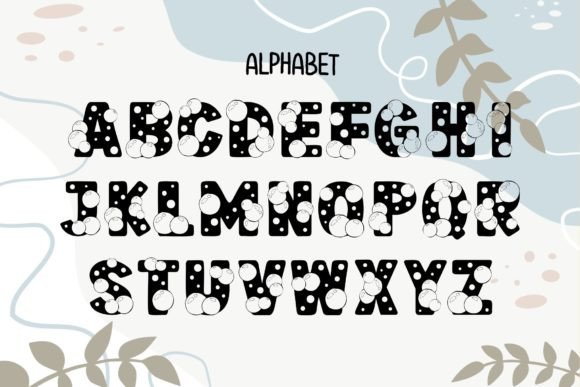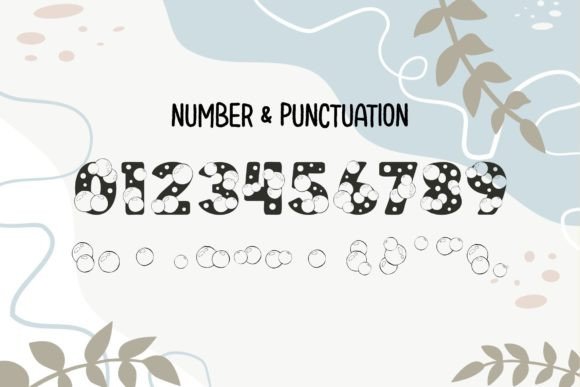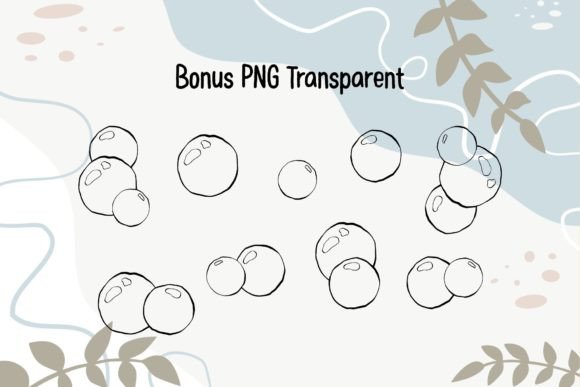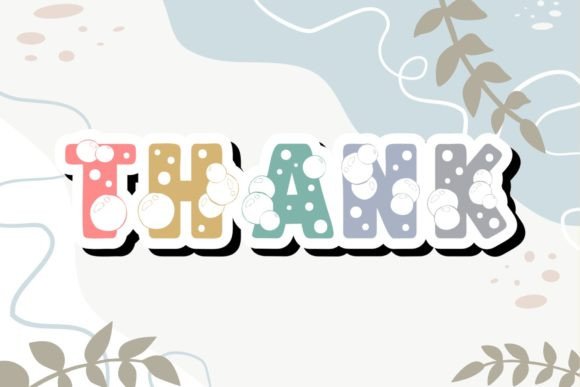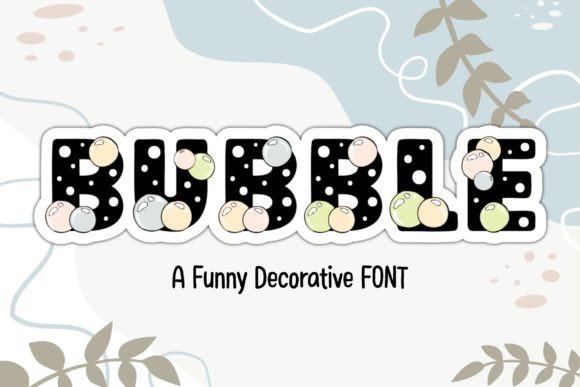
The Power of Whimsy: Unlocking the Magic of Bubble Font
Have you ever stared at a blank canvas, feeling stuck and uninspired? That’s where I find myself every time I’m tasked with creating a design that needs to pop. It’s those moments when I crave something that brings a smile to people’s faces – something that injects a dash of playfulness into my work. That’s when I turn to the trusty Bubble Font, a delightful decorative font that never fails to bring a spring to my step.
With its endearing, rounded bubbles, this font is perfect for adding a touch of whimsy to covers, posters, and crafty DIY projects. It’s an instant mood-booster that’s sure to bring a dash of fun to any design. As a designer, I can attest to the value of having a versatile font like Bubble Font in my toolkit – it’s a game-changer for projects that require a lighthearted, carefree vibe.
Bubble Font Key Features
- Unique Characteristics: The Bubble Font features a distinctive, rounded design with a soft, whimsical feel, making it ideal for use in children’s books, educational materials, and other applications where a playful tone is desired.
- Kerning and Ligatures: The font includes advanced kerning and ligature features, ensuring that text sets are displayed with precision and elegance, even in complex layouts.
Bubble Font Review
Overall, I think Bubble Font has some amazing qualities, but also some areas for improvement. Let’s dive into what works well and what doesn’t.
- Bubble Font has a playful, whimsical feel that’s perfect for fun and creative projects. It’s like a breath of fresh air!
- The font is highly customizable, with a wide range of styles and sizes to choose from. This makes it easy to tailor to your specific design needs.
- It’s also relatively easy to read, even at smaller font sizes, which is a big plus in my book.
- Unfortunately, Bubble Font can be a bit too playful at times, making it difficult to use for more serious or formal projects.
- Some of the styles can feel a bit over-the-top, which may not be suitable for all designs.
- Additionally, the font may not be suitable for text-heavy projects, as it can be a bit distracting.
In conclusion, Bubble Font is a fun and versatile font that’s perfect for creative projects. While it may have some limitations, its unique style and high customization options make it a great choice for designers looking to add some personality to their work.